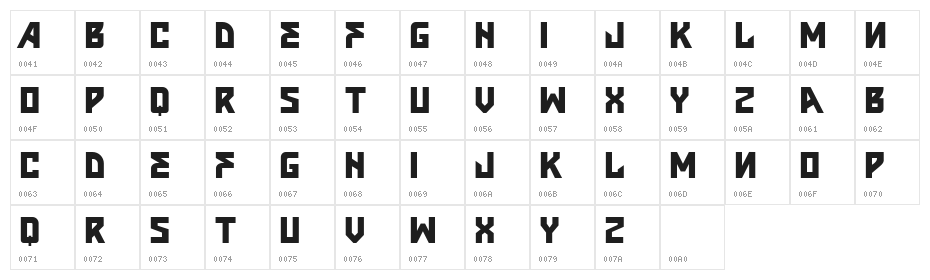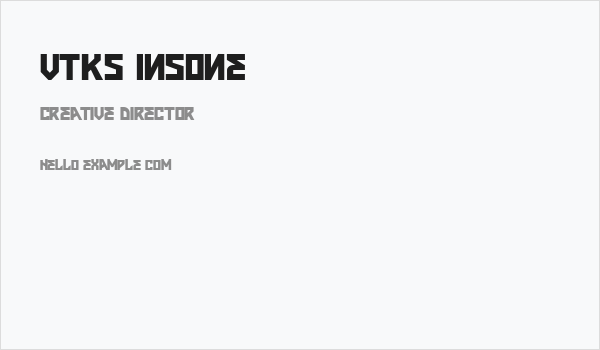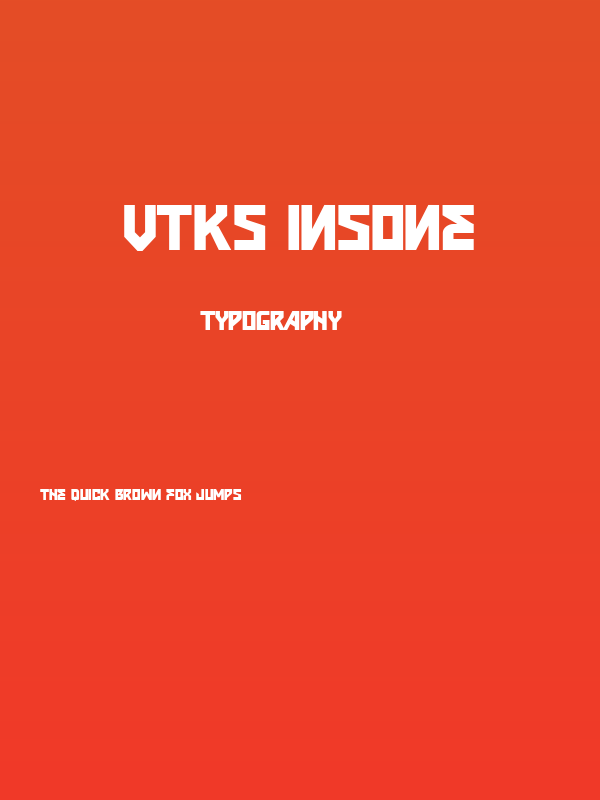
VTKS INSONE Font
VTKS INSONE Description
This font features a bold, geometric design with sharp angles and a futuristic aesthetic. The characters are constructed with thick, block-like strokes that create a strong visual impact. Each letter is uniquely stylized, incorporating angular cuts and edges that contribute to its modern and edgy appearance. The uppercase letters dominate the design, with a consistent height and width that ensures uniformity across the typeface. The absence of curves and the emphasis on straight lines give it a distinctly digital feel, making it suitable for projects that require a contemporary and assertive look.
| Proposed Projects | Ideal for branding, posters, video game graphics, and sci-fi themed projects. |